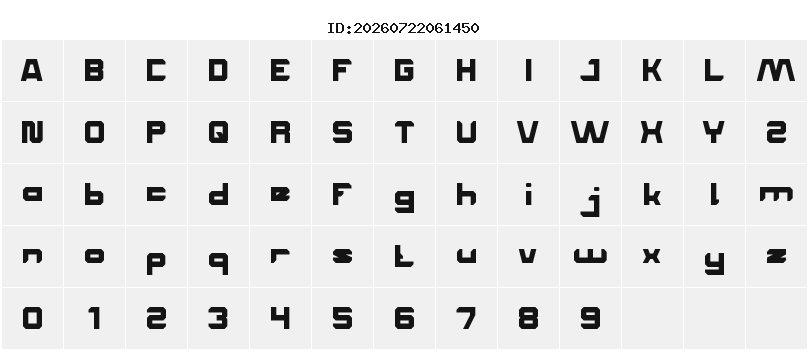
• Font Name: House Music
About House Music.ttf
House Music.ttf is a modern, elegant sans-serif font designed for ultimate readability and visual harmony. Perfect for branding, headlines, web design, and print materials.